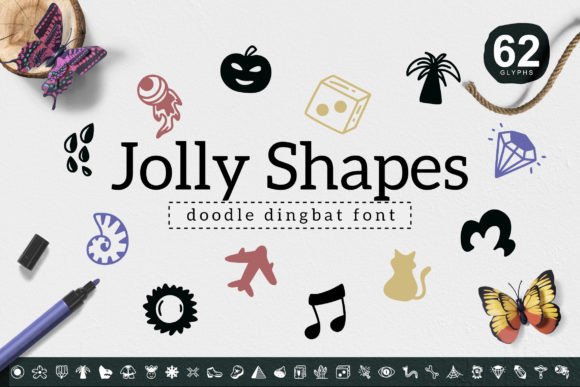
Encounter Jolly Shapes, a jubilant dingbats font family that exudes fun and functionality. Composed by YandiDesigns, this creative gem is meticulously crafted to elevate your design projects to new heights. Dive into a realm of limitless possibilities and let your imagination soar as you explore the captivating world of Jolly Shapes.
With Jolly Shapes, you'll discover a treasure trove of charming icons, each meticulously designed to add a touch of whimsy and delight to your creations. From playful animals and captivating objects to enchanting symbols and cheerful characters, this font family has it all. Unleash your creativity and bring your projects to life with these endearing icons.
Jolly Shapes isn't just a collection of icons; it's an invitation to embark on an artistic journey. Picture this: you're working on a vibrant sticker design, and you need that perfect icon to capture the essence of joy. Look no further than Jolly Shapes. Its playful icons will add a burst of happiness to your stickers, making them irresistible to anyone who sees them.
How about a captivating poster that demands attention? Jolly Shapes has got you covered. Its charming icons will elevate your posters, adding a layer of visual interest that will captivate your audience. Create posters that resonate with your message and leave a lasting impression.
Envision yourself designing a t-shirt that exudes personality. With Jolly Shapes, you can turn ordinary tees into expressions of your unique style. Its delightful icons will transform your t-shirts into wearable works of art, making you the envy of all who see them.
And oh, those greeting cards! Imagine crafting heartfelt cards adorned with Jolly Shapes' enchanting icons. These icons will add a touch of magic to your cards, making them cherished keepsakes that convey your heartfelt sentiments.
The applications for Jolly Shapes are as boundless as your creativity itself. Unleash your inner artist and explore the limitless possibilities this font family offers. Whether you're creating apparel graphics, designing logos, or crafting digital content, Jolly Shapes is your trusty companion, transforming your designs into captivating masterpieces.
So, embrace the charm of Jolly Shapes and embark on a creative adventure like never before. This jubilant font family is waiting to ignite your imagination and transform your projects into works of art. Let your creativity bloom with Jolly Shapes!